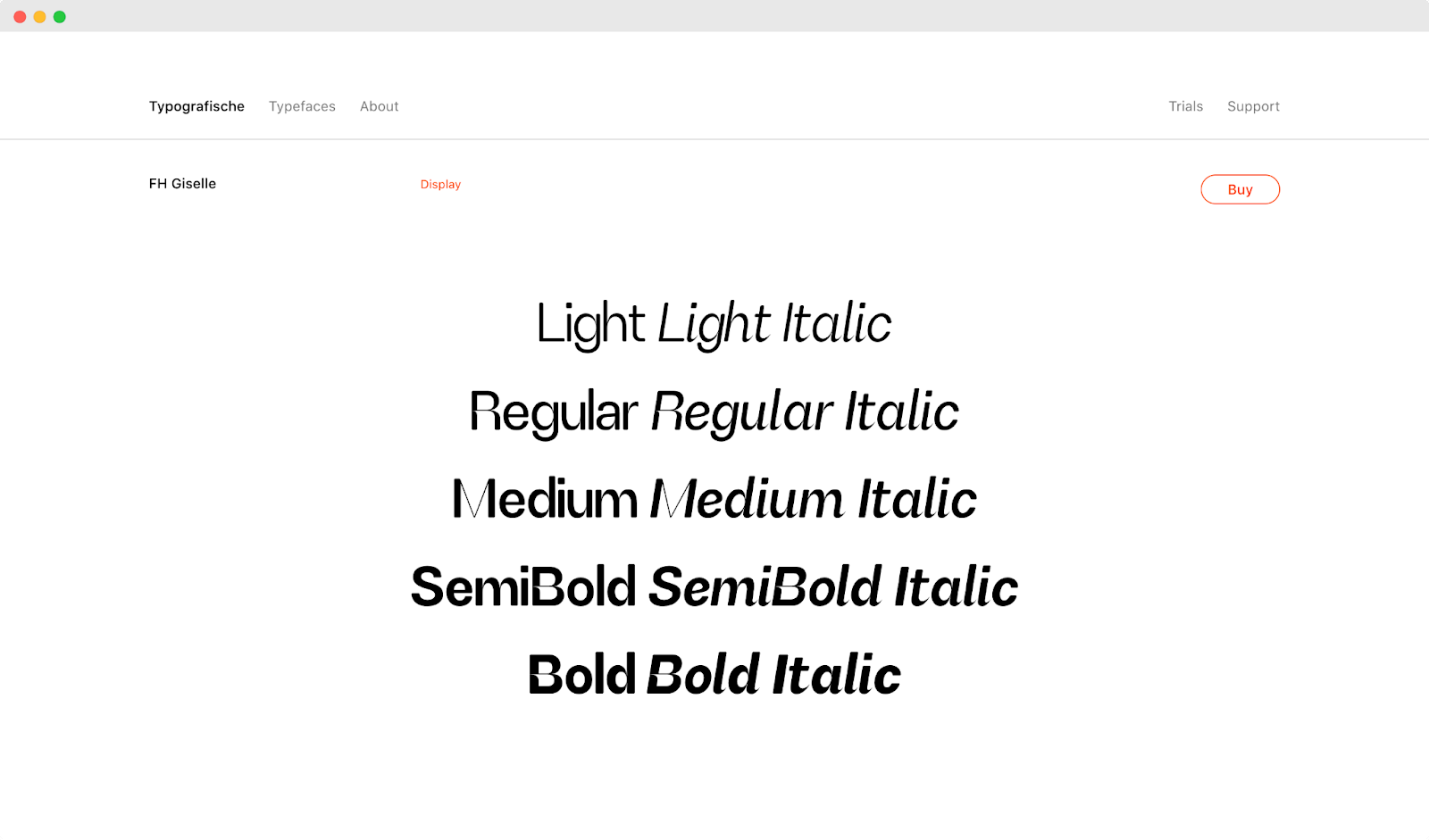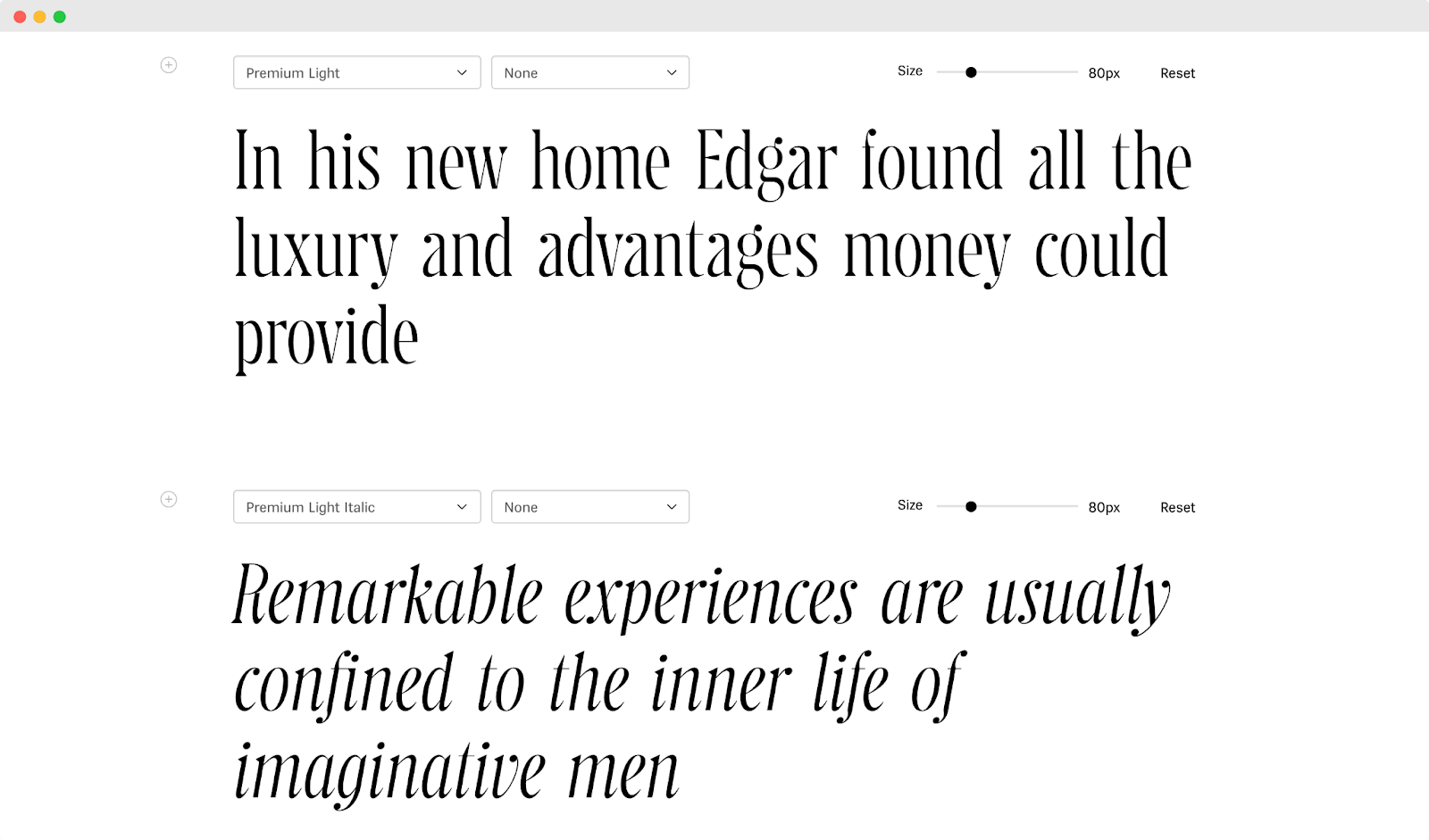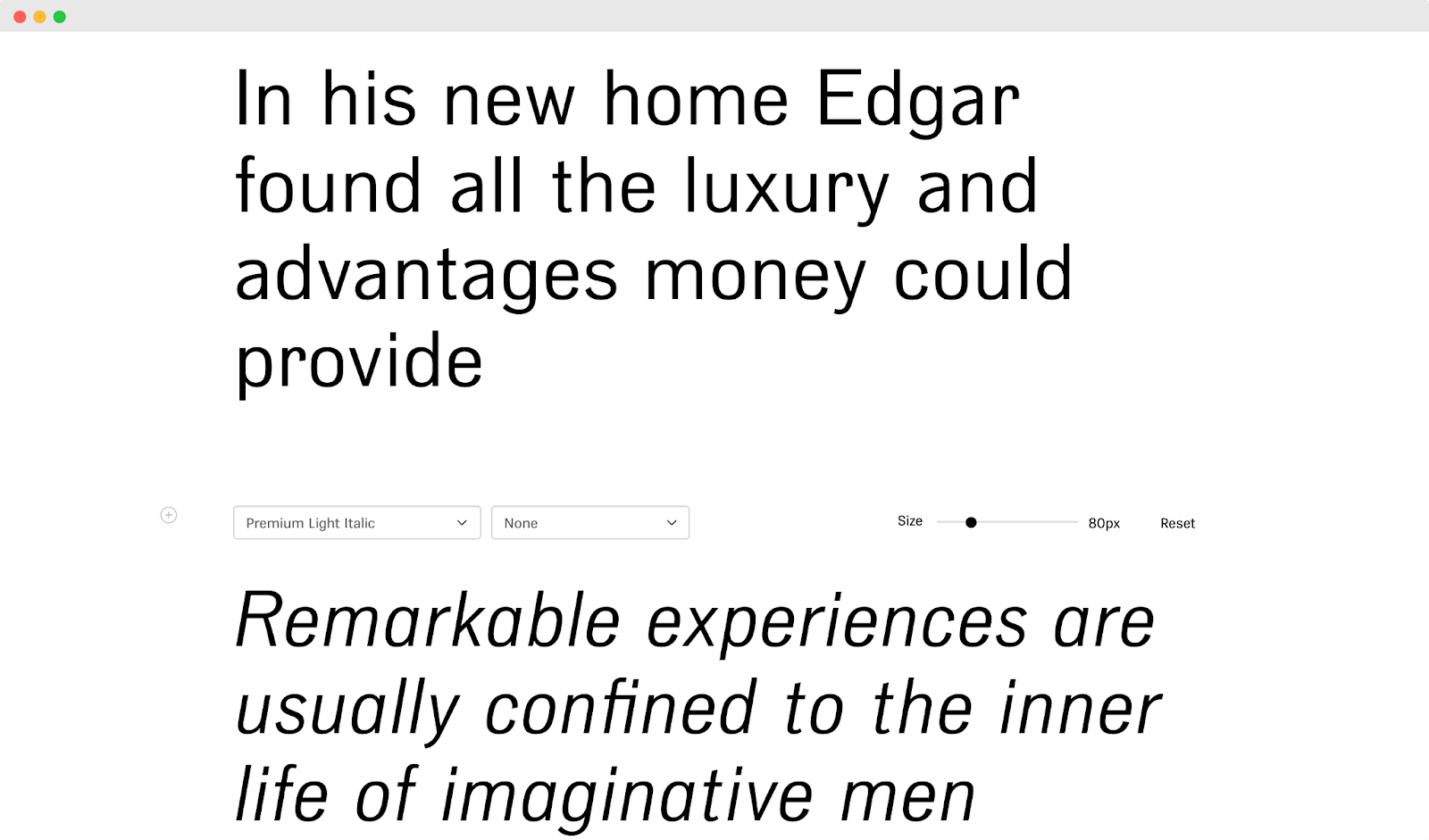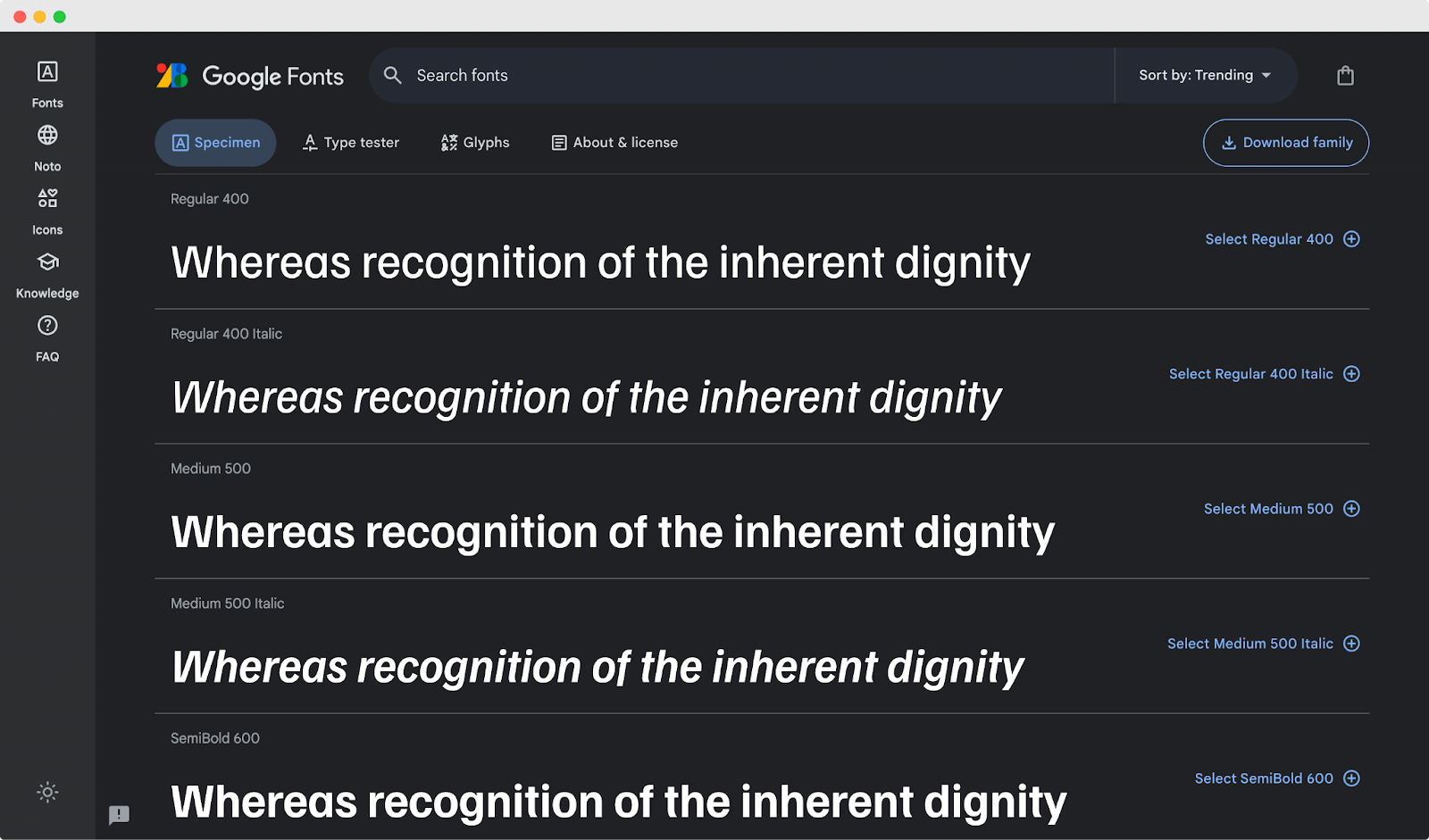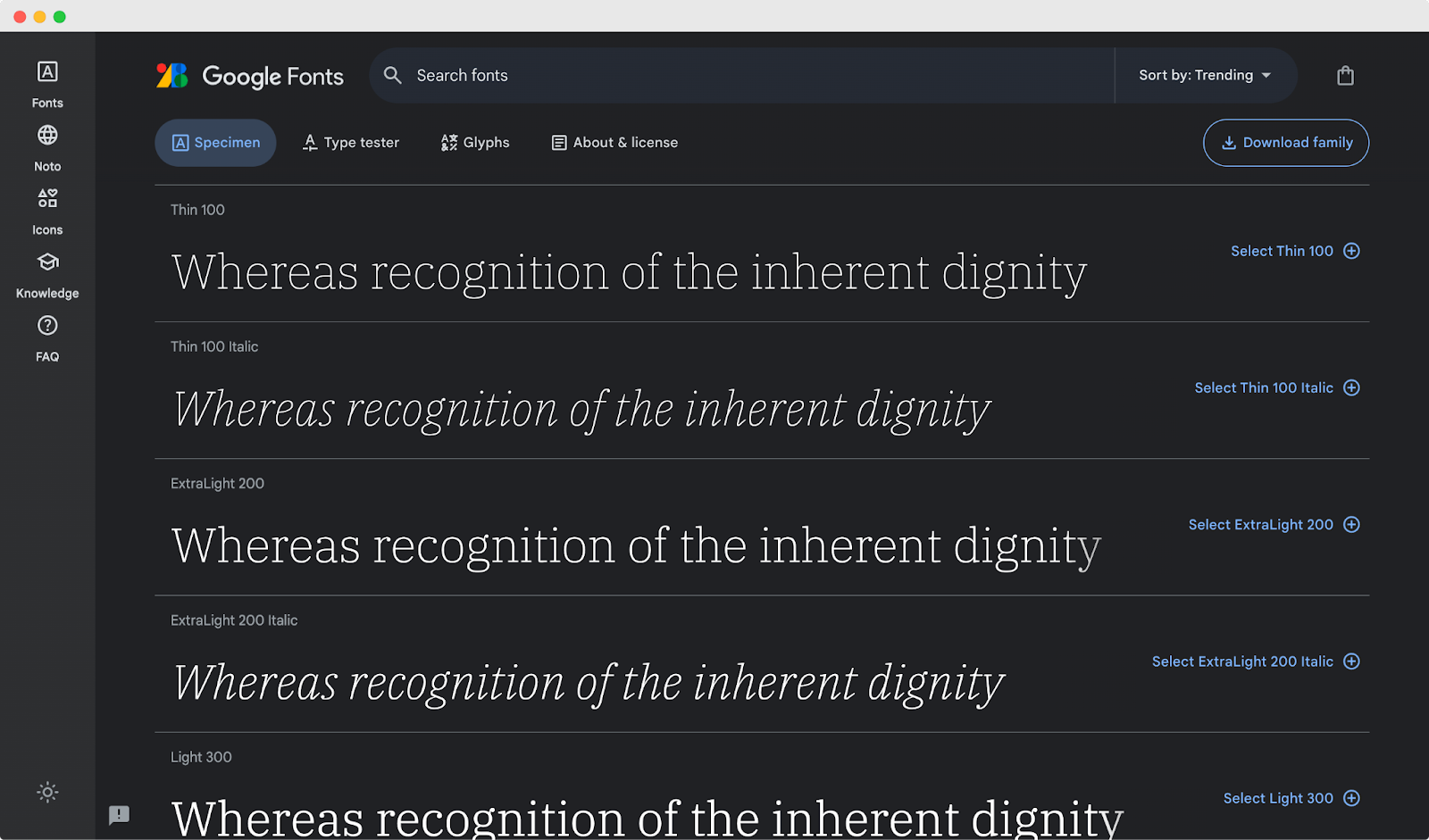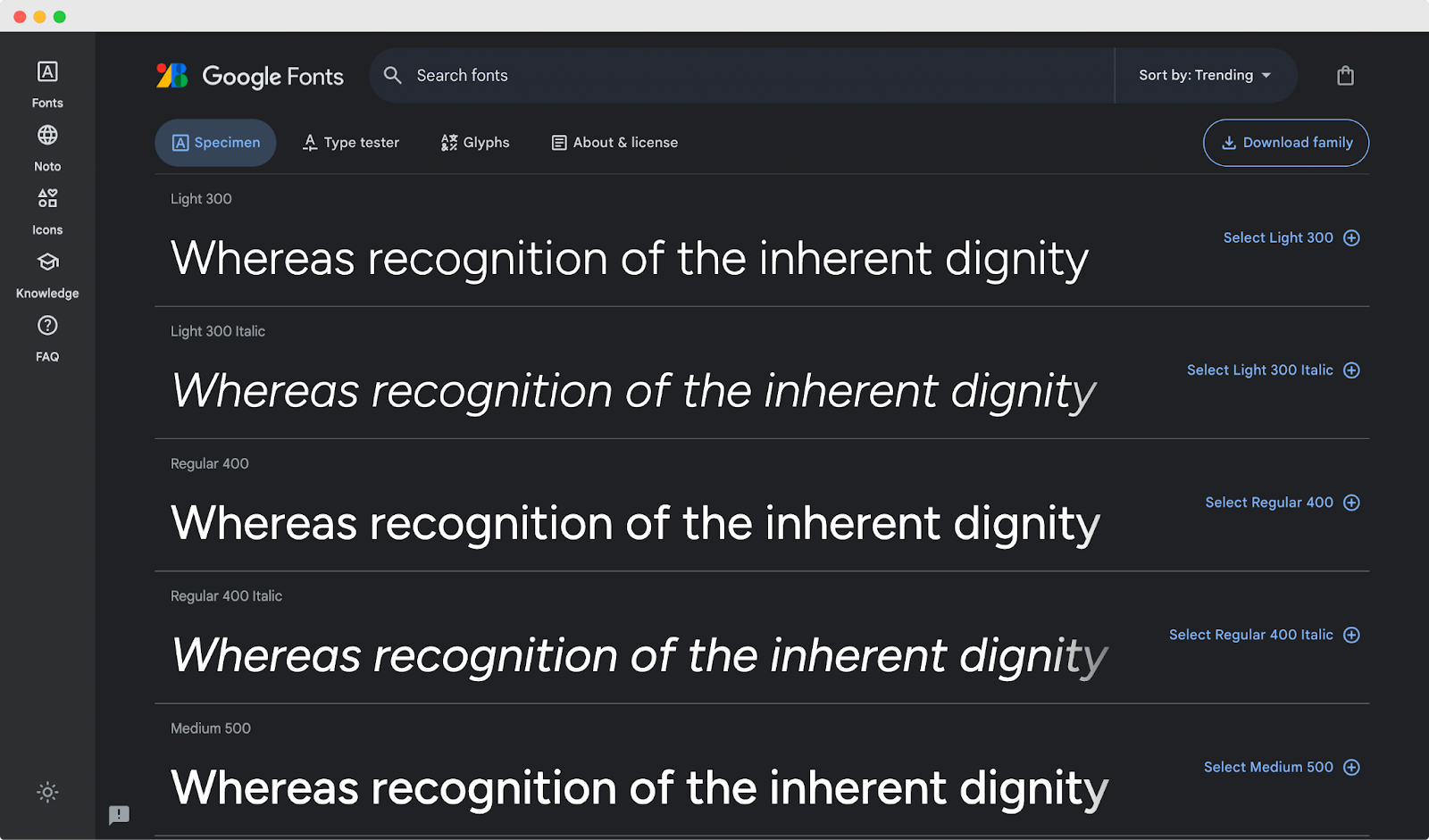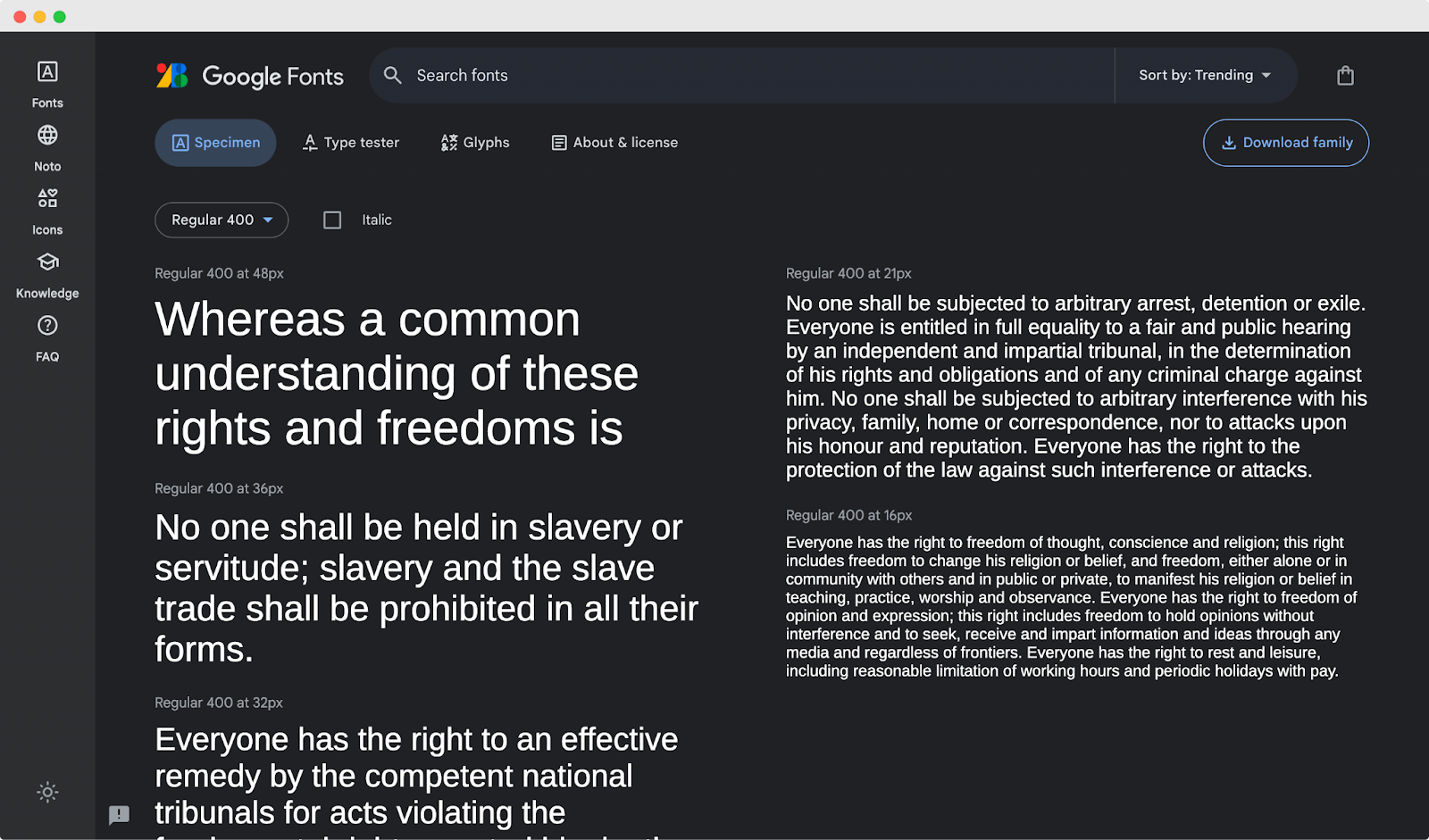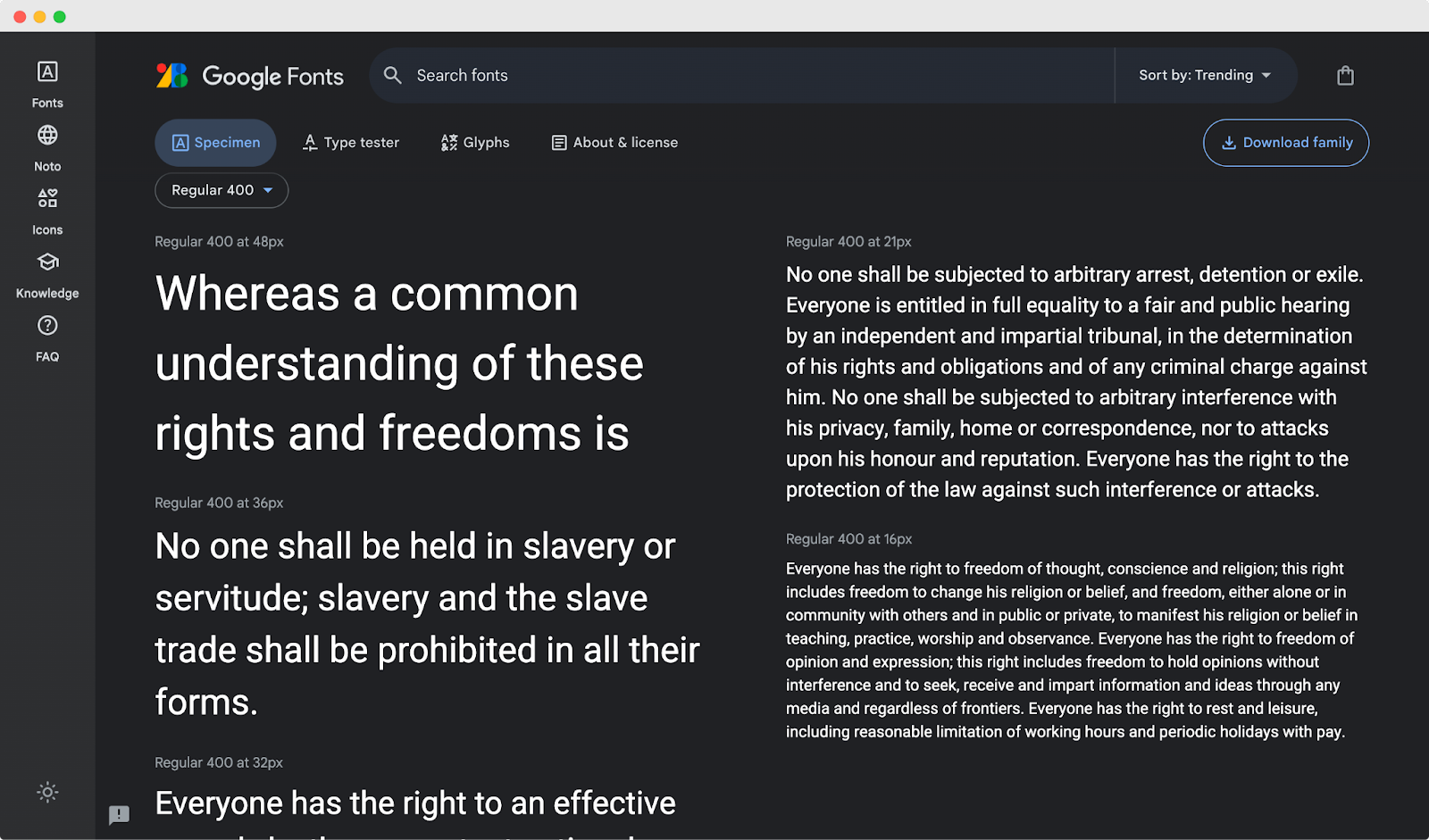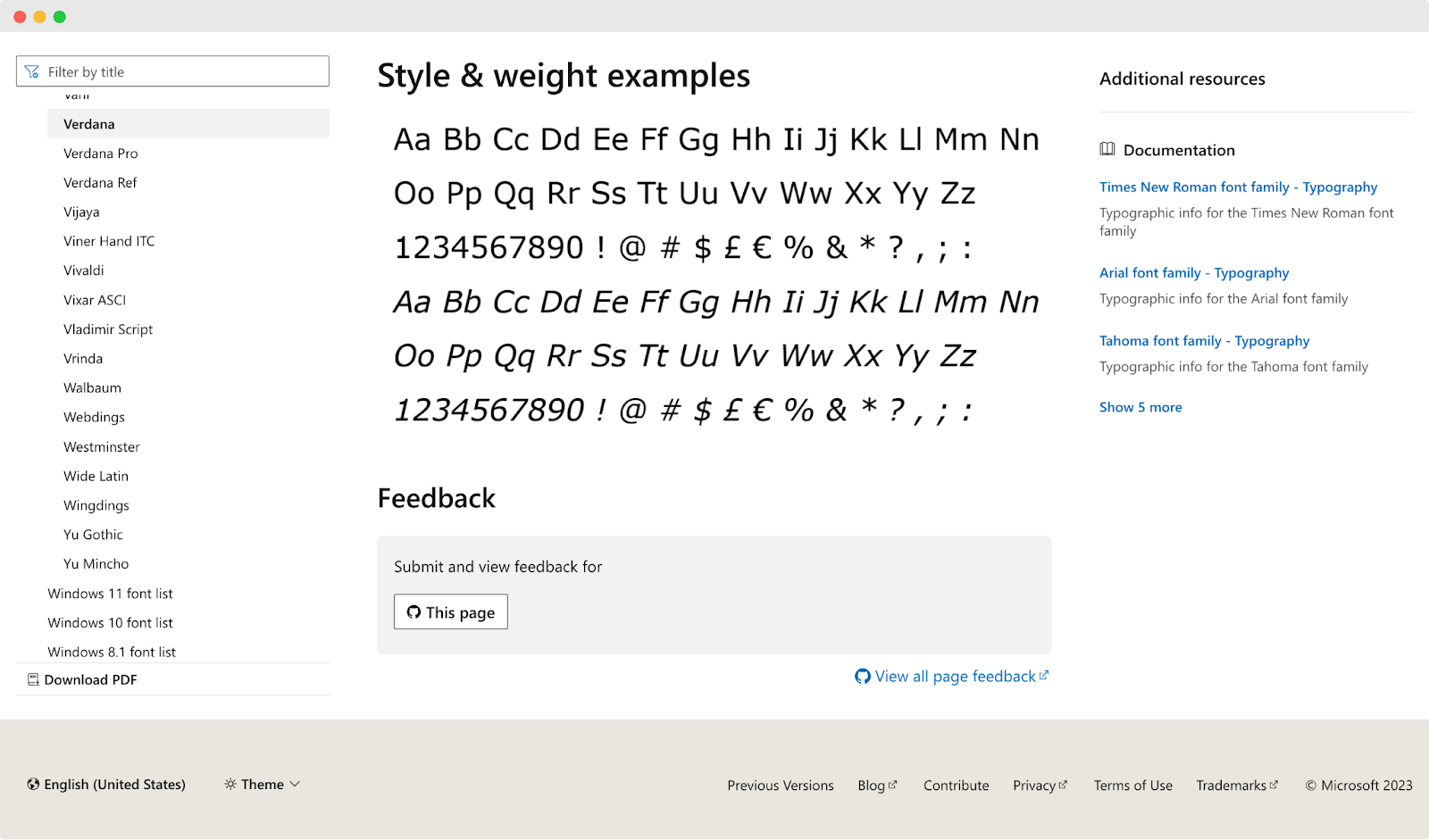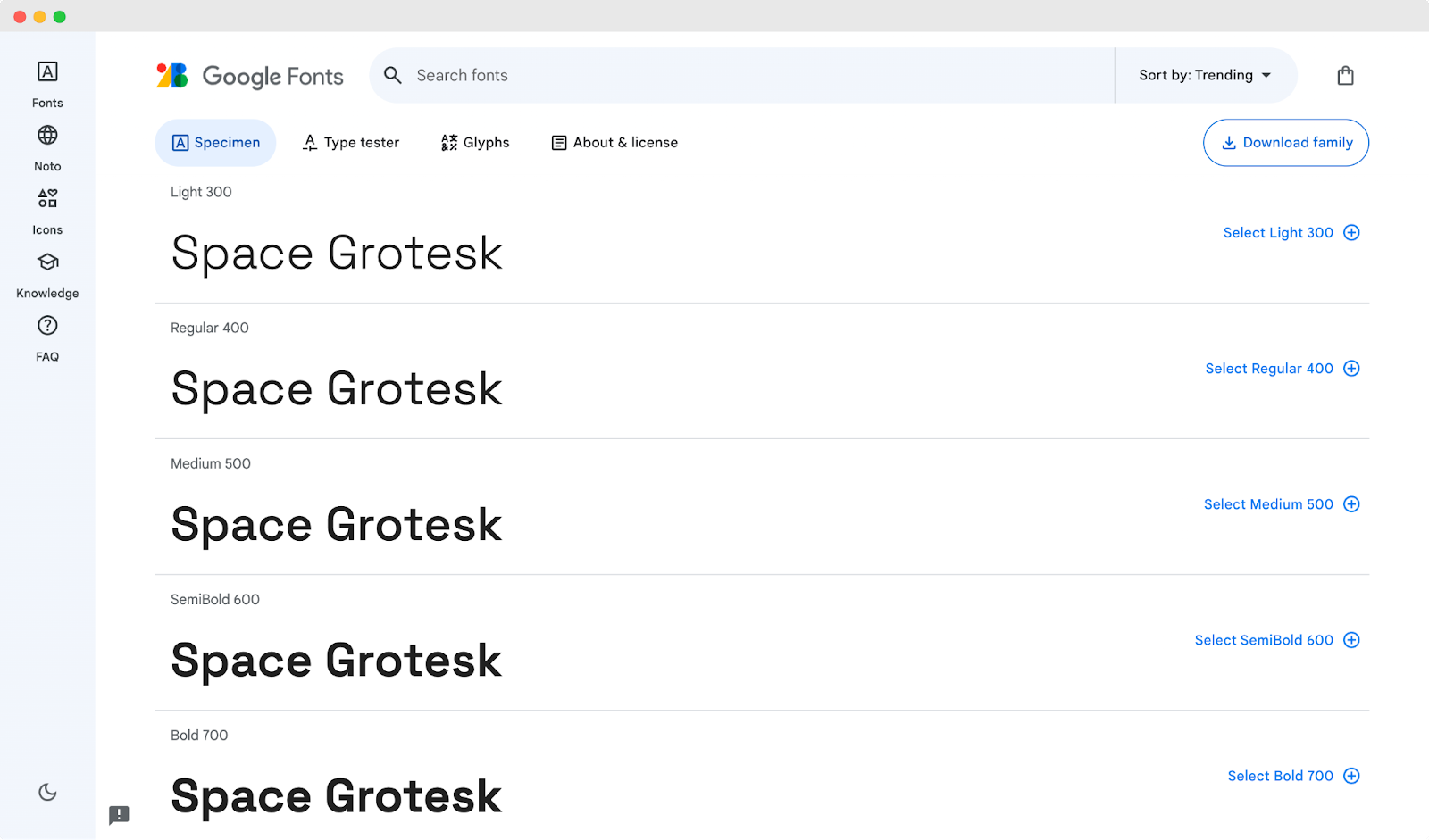
Top 20 Best Web Fonts You Should Use In 2026
When you think about the best web fonts, what comes to mind? Surely, some readable fonts can help to easily convey your message without causing readers any visual difficulties, enhancing your user experience. But with the plethora of fonts available for web design, what fonts should you use in 2026 to truly make your website design shine? Dive into this blog to learn what is most trendy now to stay ahead of the curve.
Top 20 Best Web Fonts
How To Choose Web Fonts for Your Design Projects
Before exploring the best web fonts for 2026, let’s quickly learn how to choose the font that would be the perfect fit for your business or brand image. Take a glimpse below to learn the secrets of creating awesome typography with the best fonts.
• When choosing web fonts, consider the purpose, style, and audience.
• To catch younger audiences, modern, trendy, bold, and eye-catching fonts are your best option.
• For older or conservative audiences, you should choose classic, familiar, and easy-to-read fonts.
• If you design minimalist websites, simple, clean, and geometric fonts are the better choice.
• While choosing web fonts, pick something that matches your website’s purpose, tone, and color scheme.
Top 20 Best Web Fonts For 2026
Now that you know how to choose web fonts, explore the trendy web fonts below and choose one to showcase your message with the utmost user experience.
1. Sora
Sora is a clean and trendy font with visually appealing rounded letterforms. You can use this versatile font anywhere you want on your website and provide a consistently clean outlook. Also, this web font can be a great option for your apps as well.
Best Web Fonts - Sora
2. IBM Plex Sans
The IBM Plex Sans is a neutral yet friendly Grotesque style font that could be an excellent choice for using your web page with its stark pointed ends. If you have a text-heavy website, it could be your go-to option for enhancing your readability.
Best Web Fonts - IBM Plex Sans
3. Rubik
In contrast, next up, we have the Rubik style. It is a modern and versatile sans-serif font with rounded edges, currently trending in the design industry. It is suitable for different kinds of design applications, which is why you should also consider using it on your website as well.
Best Web Fonts - Rubik
4. Space Grotesk
Space Grotesk is another of the best Google fonts for websites with a clean and minimalistic outlook. This trending web font is also known for its simplicity and readability, highlighted by its high proportionalities. So, you can definitely try this font on your website if you want to design a clean interface.
Best Web Fonts - Space Grotesk
5. Inter
Inter is a highly legible and well-balanced sans-serif font for your website and applications. If you ever think of using a versatile font, then Inter could be a great choice for you as it has been specially designed for computers and web applications.
Best Web Fonts - Inter
6. Manrope
Manrope is a geometric sans-serif font ideal for modern design projects. With a contemporary look and a touch of elegance, this trending web font is an excellent choice for next-level websites.
Best Web Fonts - Manrope
7. Noto Sans
Noto Sans is a comprehensive sans-serif font family which is one of the most versatile fonts you can find for a multilingual website. It is designed to showcase a wide range of languages and scripts that will give the ultimate readability option when you target a global audience.
Best Web Fonts - Noto Sans
8. Work Sans
Work Sans could be another option for you if you are looking for a clean, straightforward, and easy-to-read web font. It could be used both in your website and app, making it a suitable option for different design projects.
Best Web Fonts - Work Sans
9. Fira Sans
Fira Sans is a similar web font known for its readability and versatility. Therefore, it is popular among designers while designing various websites and applications as it has been developed with various programming languages in mind.
Best Web Fonts - Fira Sans
10. FH Ronaldson
FH Ronaldson is a classic and timeless web font that could be used in specific design projects as it brings designs made specifically in 3 styles: bold, Roman, and italics. When you are required to design a traditional and elegant appearance, FH Ronaldson could be your go-to option.
Best Web Fonts -  FH Ronaldson
11. FH-Giselle
FH-Giselle is another great choice when you are looking for a unique typographic style. It comes with traditional and contemporary elements to bring modern aesthetics to your design, featuring a perfect blend of thin and bold lines.
Best Web Fonts - FH-Giselle
12. Steiner
Steiner web font comes with sophistication and elegance. When your design project requires a refined appearance, the Steiner is an excellent choice for you. Thin streaks of lines are perfectly met with bulbous or rounded ends in this web font style and can help to create stunning logos.
Best Web Fonts - Steiner
13. Trans Sans
Trans Sans is a versatile sans-serif font with a modern and approachable design, making it suitable for a wide range of applications that want to feature a more rounded font style.
Best Web Fonts - Trans Sans
14. Slavia
Slavia is a serif font with a classic and timeless look. It will provide an elegant typeface to your design, making your content appealing to visitors with a more formal look that will not go out of style in many years.
Best Web Fonts - Slavia
15. Familjen Grotesk
Familjen Grotesk is also a trending and minimalist design that belongs to the sans-serif font family, resembling the human writing style most clearly. You can use this font on various design projects adding a modern touch to your websites.
Best Web Fonts - Familjen Grotesk
16. IBM Plex Serif
IBM Plex Serif is a serif font that you can choose for clarity and legibility. Unlike the IBM Plex Sans mentioned earlier, this web font offers a more rounded look with enough rigidness for formal typographies. It will make your text more readable and eye-catching for your visitors.
Best Web Fonts -  IBM Plex Serif
17. Figtree
Figtree is a unique and artistic font, making it ideal for creative and artistic projects. With a hand-drawn appearance, this trending web font could be a great option for aesthetic websites.
Best Web Fonts -  Figtree
18. Arimo
Arimo is another trending web font from the sans-serif font family. It is designed for maximum readability for websites and applications. You can choose this font for versatile design projects and ensure any readers can understand your content with no difficulties.
Best Web Fonts -  Arimo
19. Heebo
Heebo is the right choice if you are looking for friendly and clean fonts for websites. It can give your design an approachable outlook while using it in different design projects.
Best Web Fonts -  Heebo
20. Verdana
Verdana is a globally recognized and highly legible web font. It profiles optimal readability on digital screens. Thus, it could be your perfect choice for any application or web project.
Best Web Fonts - Verdana
Make Web Typography Appealing With Trending Fonts
Choosing trendy web fonts can help you to perfect your web typography. These 20 best web fonts offer a diverse range of styles and versatility. So, try them on your next design project, keeping your brand’s personality and target audience in mind. We hope you will create some amazing typography next time.